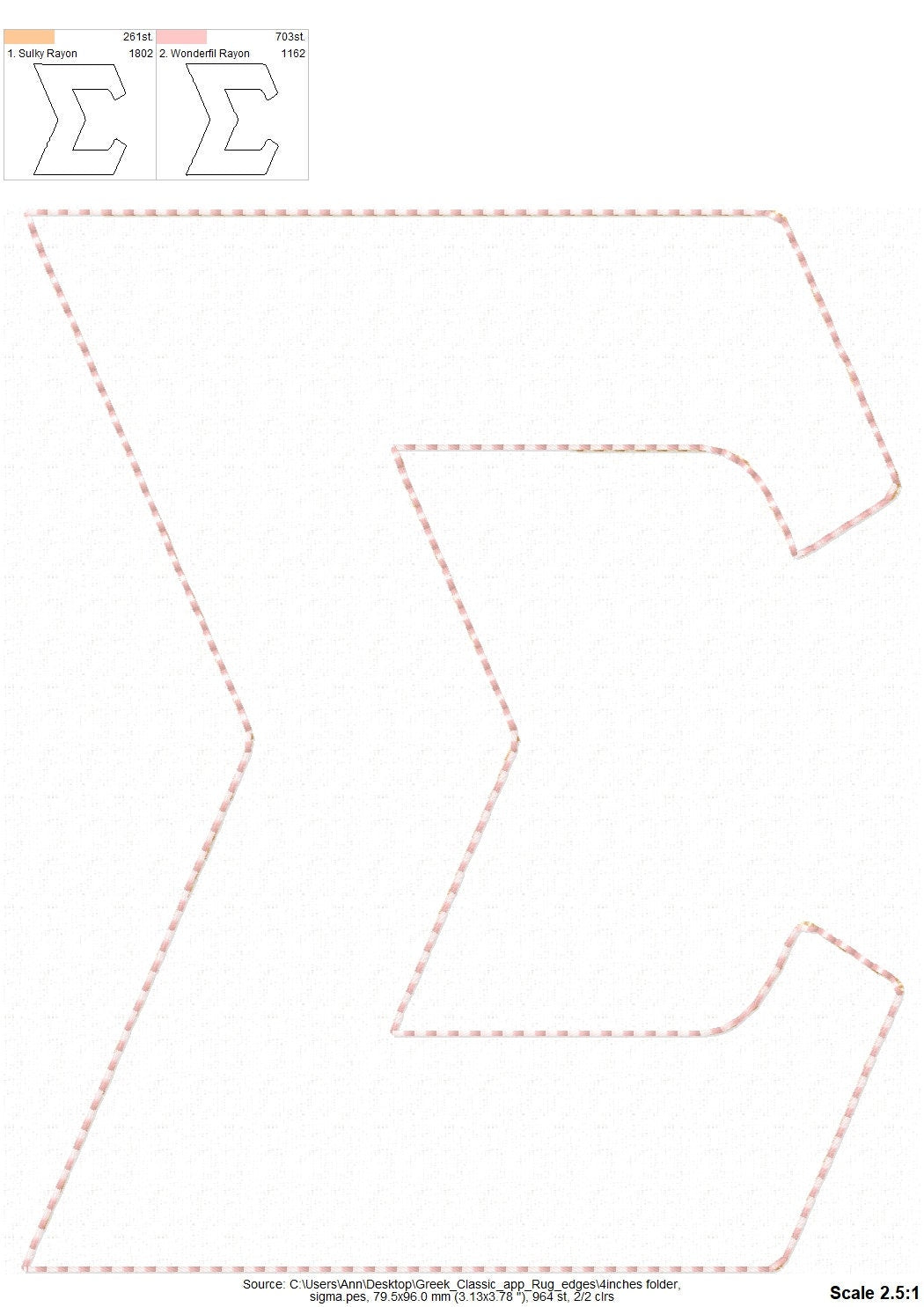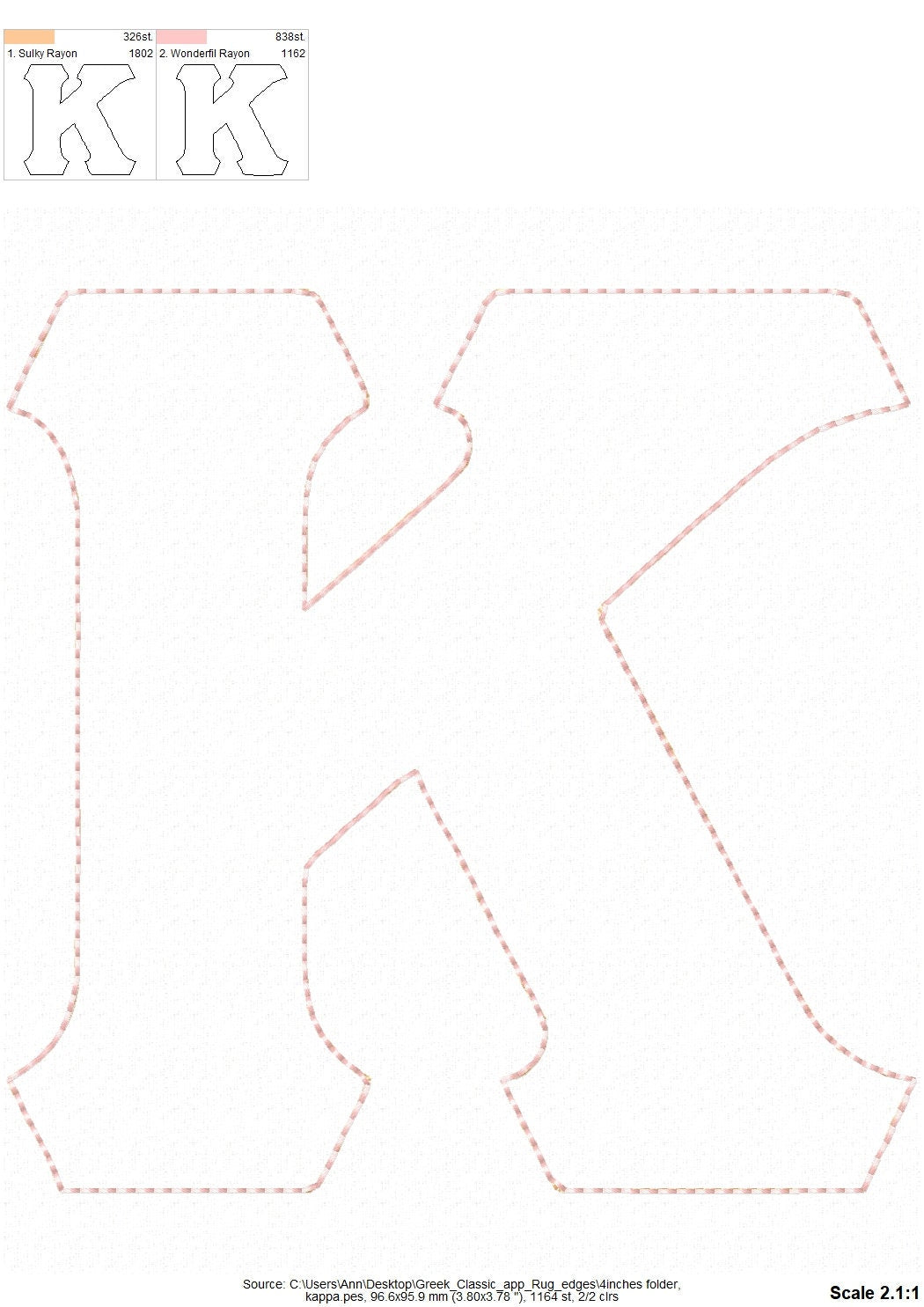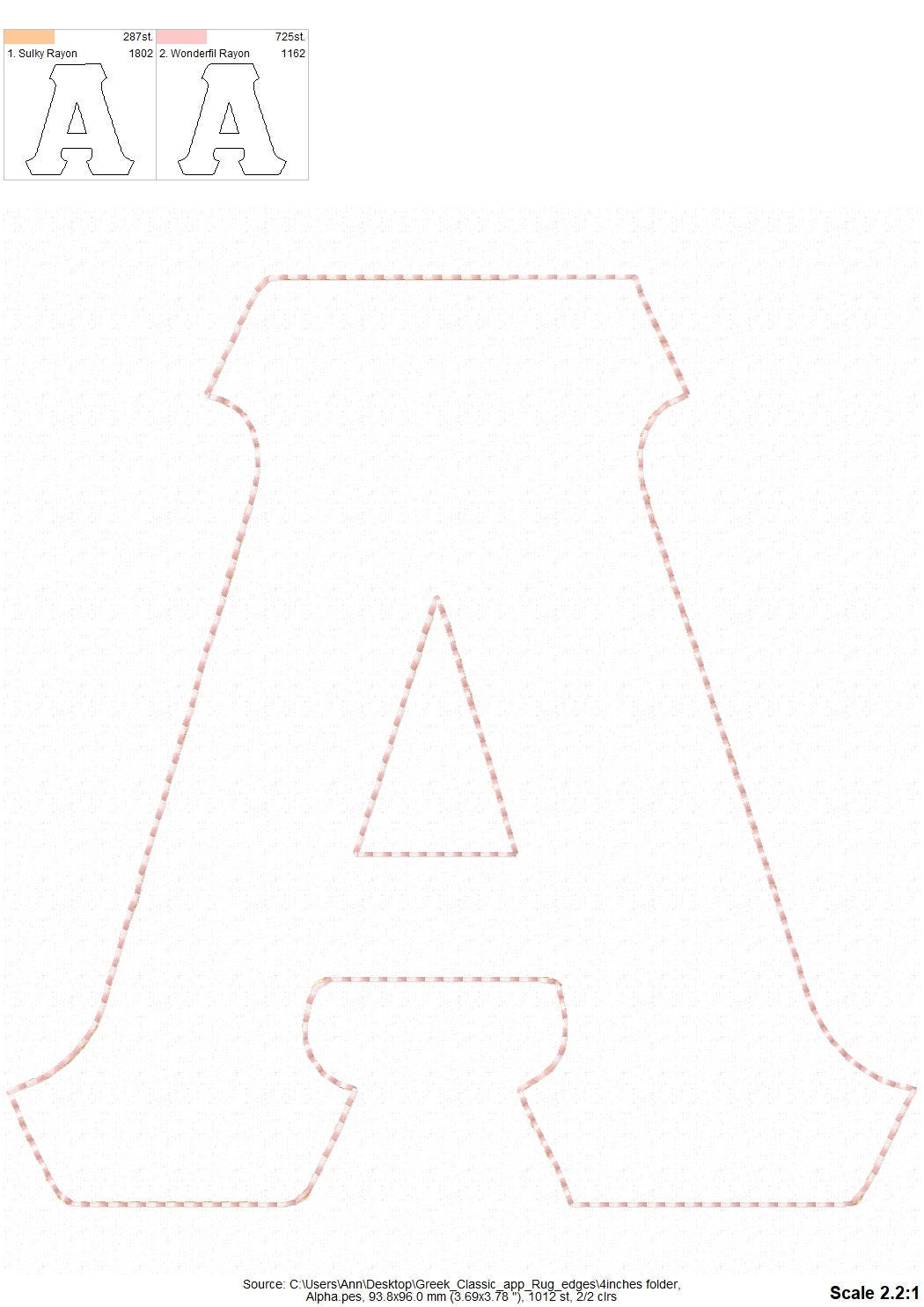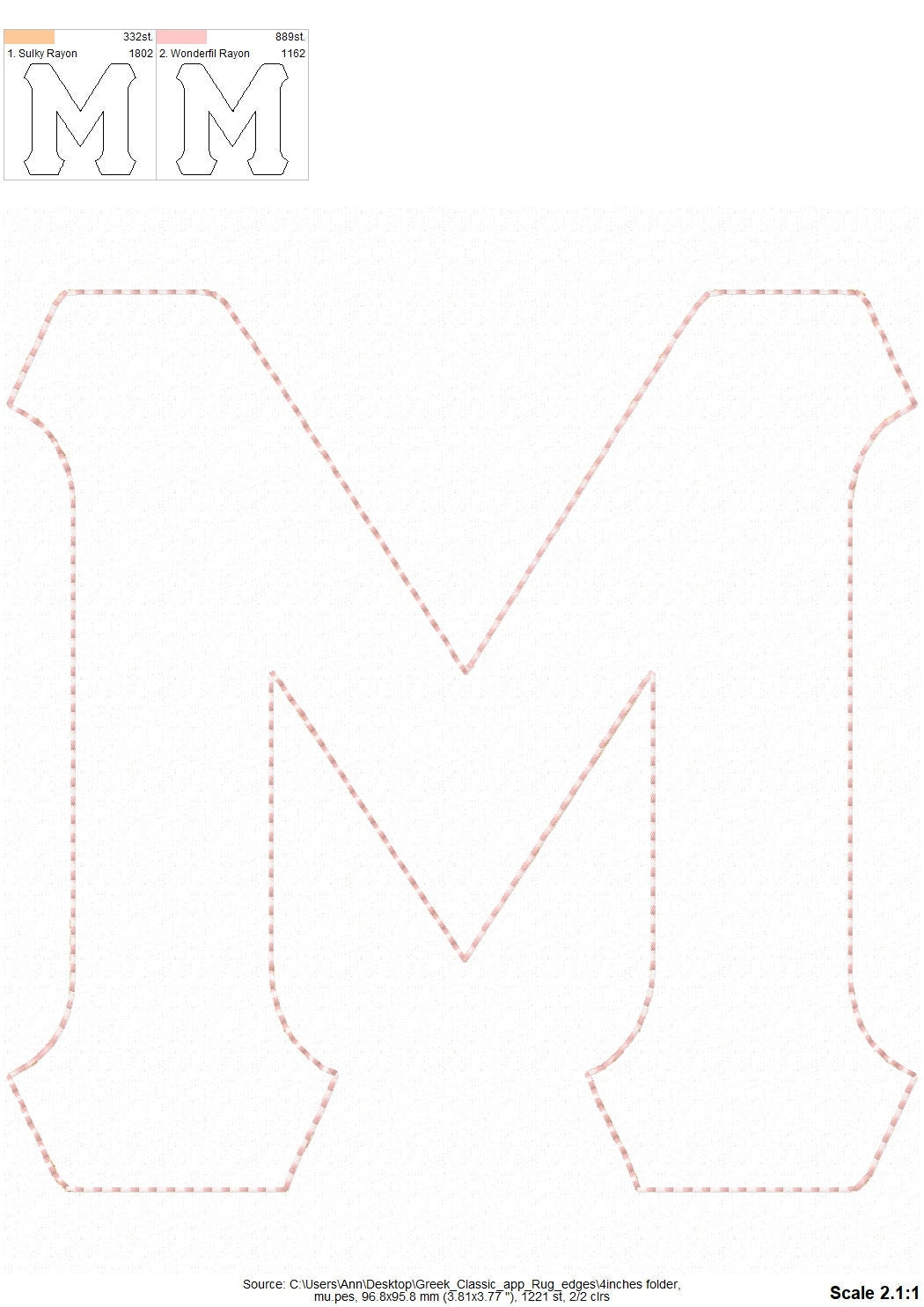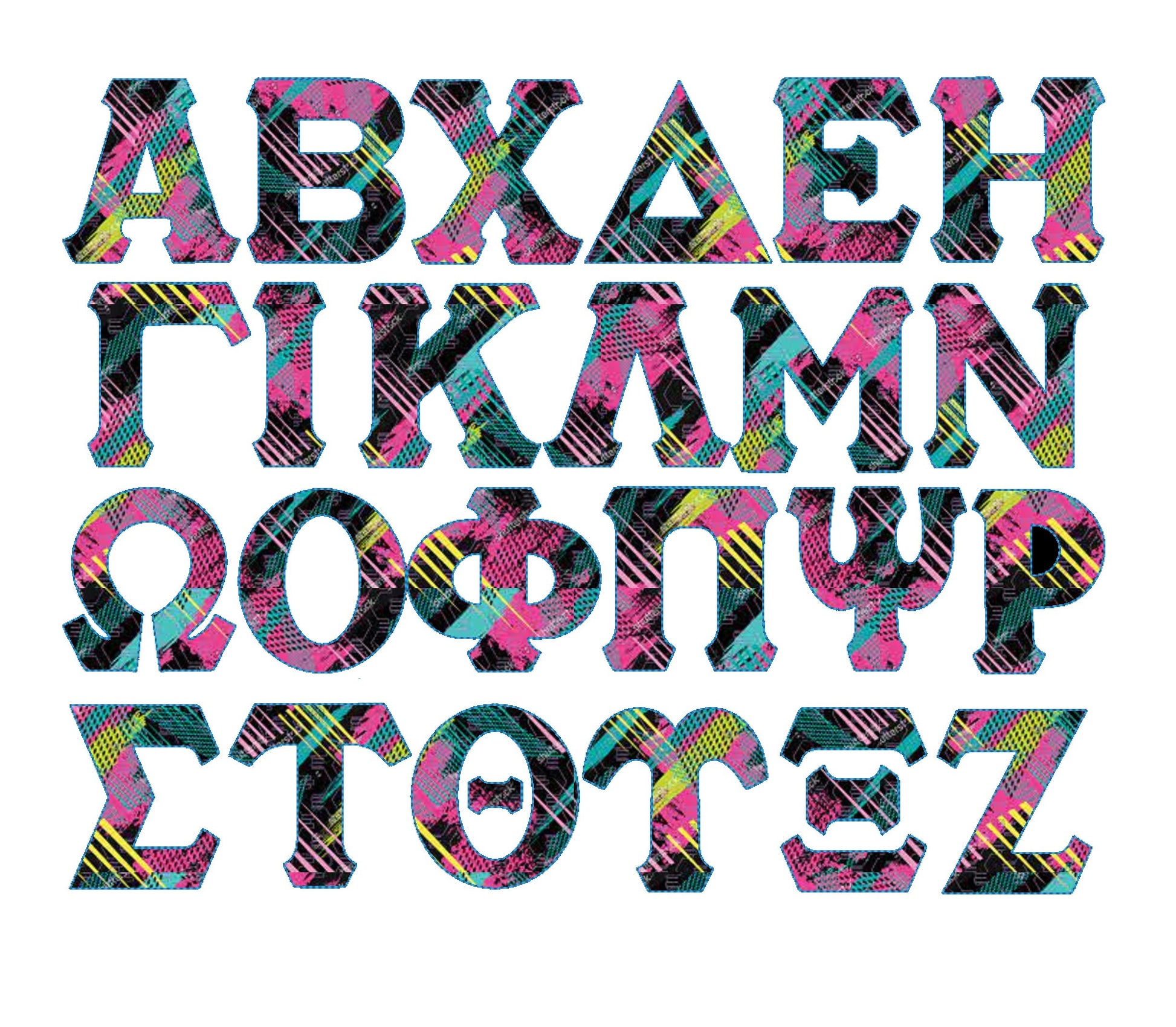
Raggedy Edge Easy Greek Font Applique
Or click to open the linkGreek letters with a raggedy edge, made as easy one-step applique. Quick and cozy for sorority and fraternity shirts, sweatshirts and bags.
All 24 Greek letters in seven sizes: 2, 2.5, 3, 4, 4.5, 5 and 5.5 inches. One-step raggedy edge applique with a light stitch count.
- 24 Greek letters, raggedy edge applique